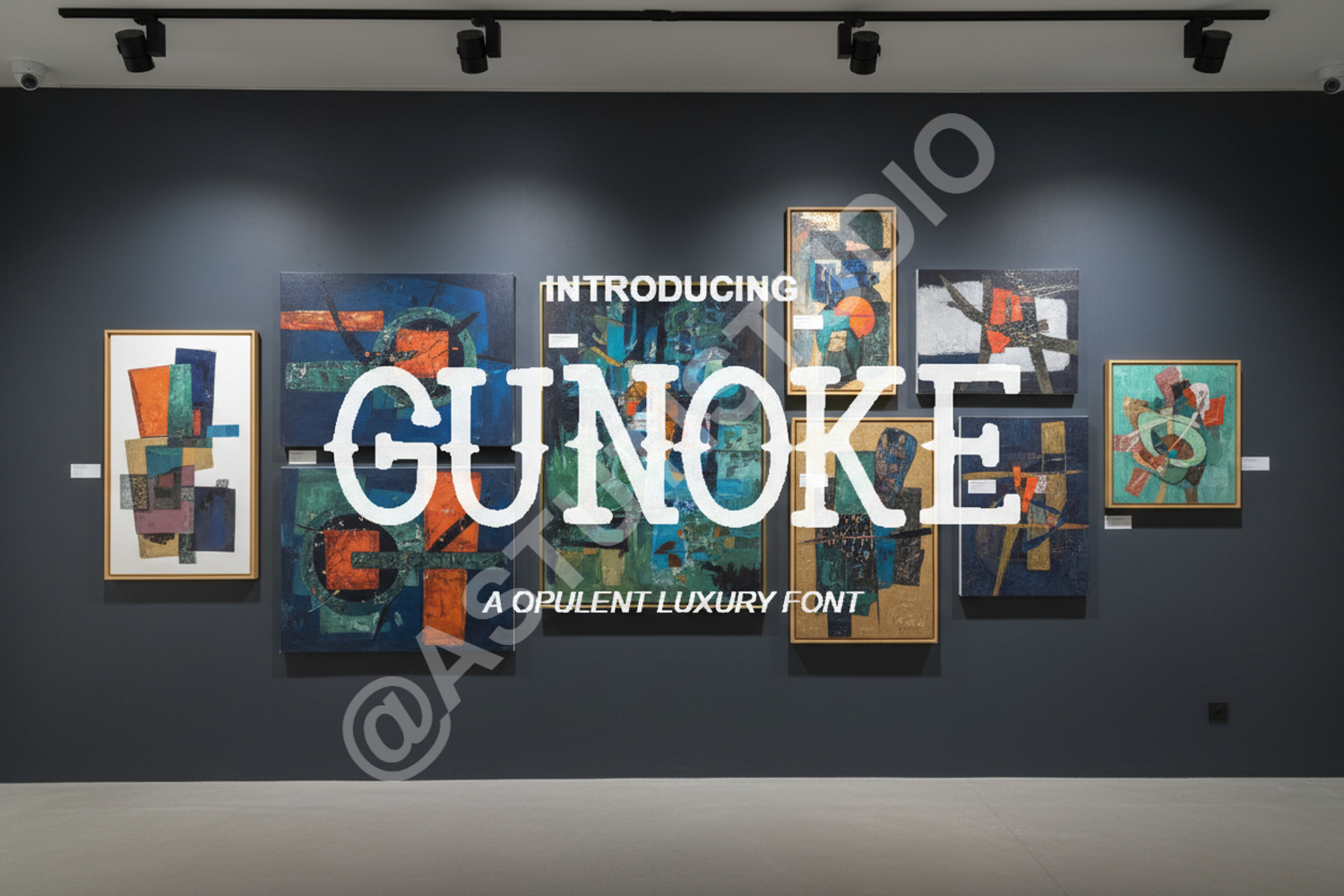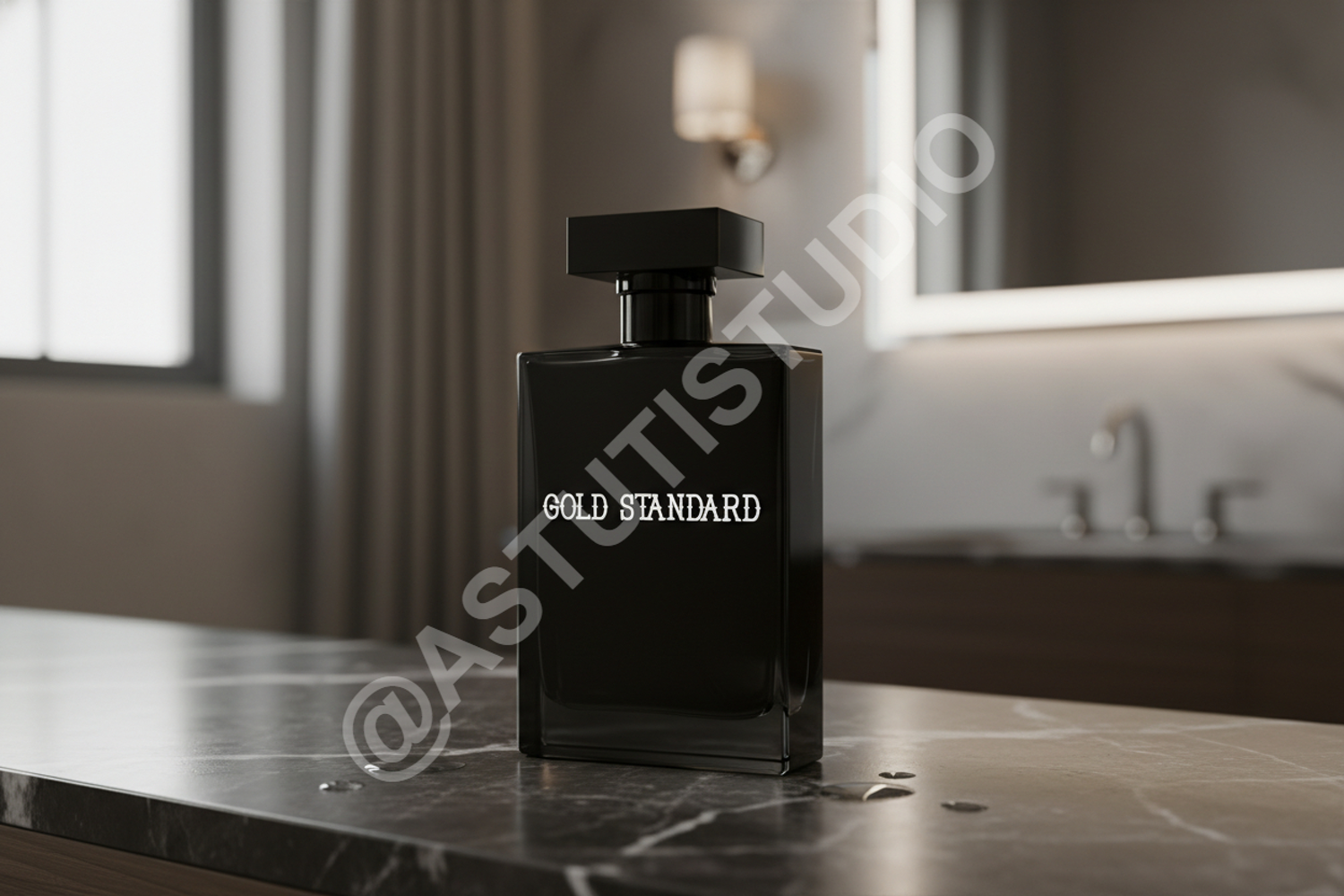
Gunoke - Modern Geometric Display Sans
Gunoke
Elevate your design projects with Gunoke, a premium geometric display sans-serif designed for maximum impact. Gunoke balances modern aesthetics with exceptional legibility, making it a versatile choice for designers who demand professional quality and a contemporary edge. Whether you are building a brand from scratch or looking for the perfect headline font, Gunoke delivers a clean and sophisticated look that stands out in a crowded market.
- Branding and Identity: Create memorable logos and cohesive brand guidelines.
- Editorial Design: Perfect for bold headlines and striking magazine layouts.
- Digital Marketing: Enhance your social media graphics, advertisements, and web banners.
- Print Media: Ideal for high-end posters, business cards, and luxury packaging.
- Modern Signage: Clean, geometric lines ensure maximum readability at any scale.